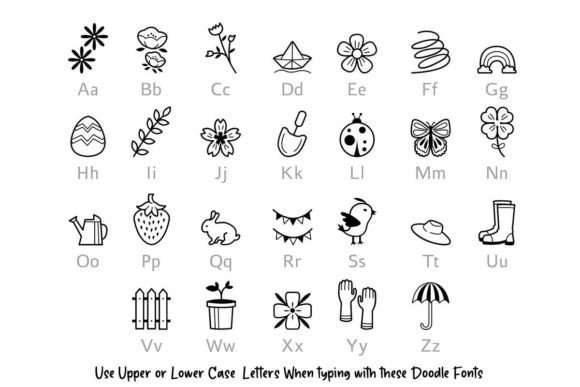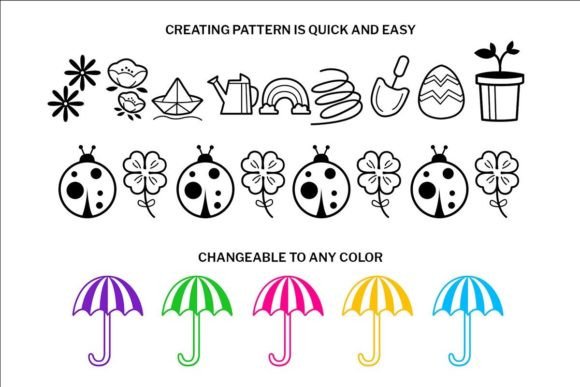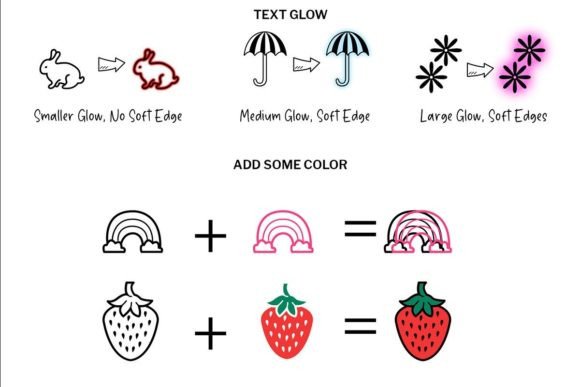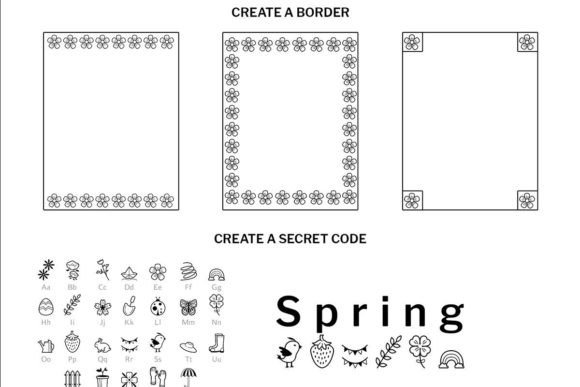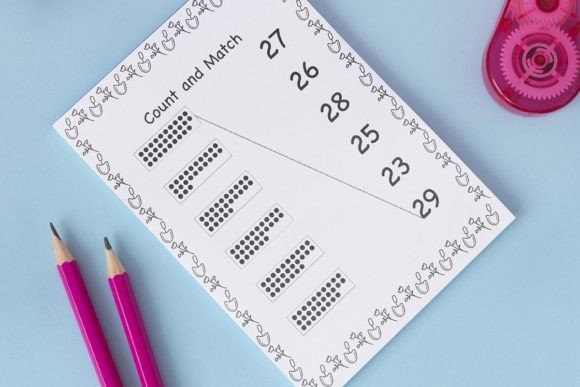
Spring Doodle Font
About Spring Doodle Font
The Spring Doodle font is a delightful and charming dingbat font that brings a sense of joy and playfulness to your creative projects. Its versatility allows it to be used in a wide range of applications, including craft projects, designs, planners, diaries, activity books, and more.
With its fun and cute design, the Spring Doodle font is perfect for adding decorative elements to your crafts. Whether you’re creating greeting cards, scrapbooking, or designing party invitations, the whimsical doodles of flowers, butterflies, birds, and other spring-themed icons will add a delightful touch to your creations.
In design projects, the Spring Doodle font can be used for various purposes. It works well in creating seasonal graphics, posters, or banners with a spring theme. Its playful and cheerful nature adds a vibrant element to any design, capturing the essence of the spring season.
For planners and diaries, the Spring Doodle font can be used to decorate pages, add headers or titles, or create themed sections. Its versatile collection of doodles provides endless possibilities for customization, allowing you to infuse your planning or journaling with the spirit of spring.
Activity books and worksheets can also benefit from the Spring Doodle font. Whether you’re designing coloring pages, puzzles, or educational materials, the adorable icons of the font will engage and entertain readers of all ages, bringing the freshness and beauty of spring to their activities.
In summary, the Spring Doodle font is a versatile and adorable dingbat font that adds a sense of fun and cheer to your creative endeavors. With its collection of spring-themed doodles, it is suitable for a wide range of craft projects, designs, planners, diaries, activity books, and more. Let the Spring Doodle font inspire your imagination and bring the vibrancy of spring to your creations.